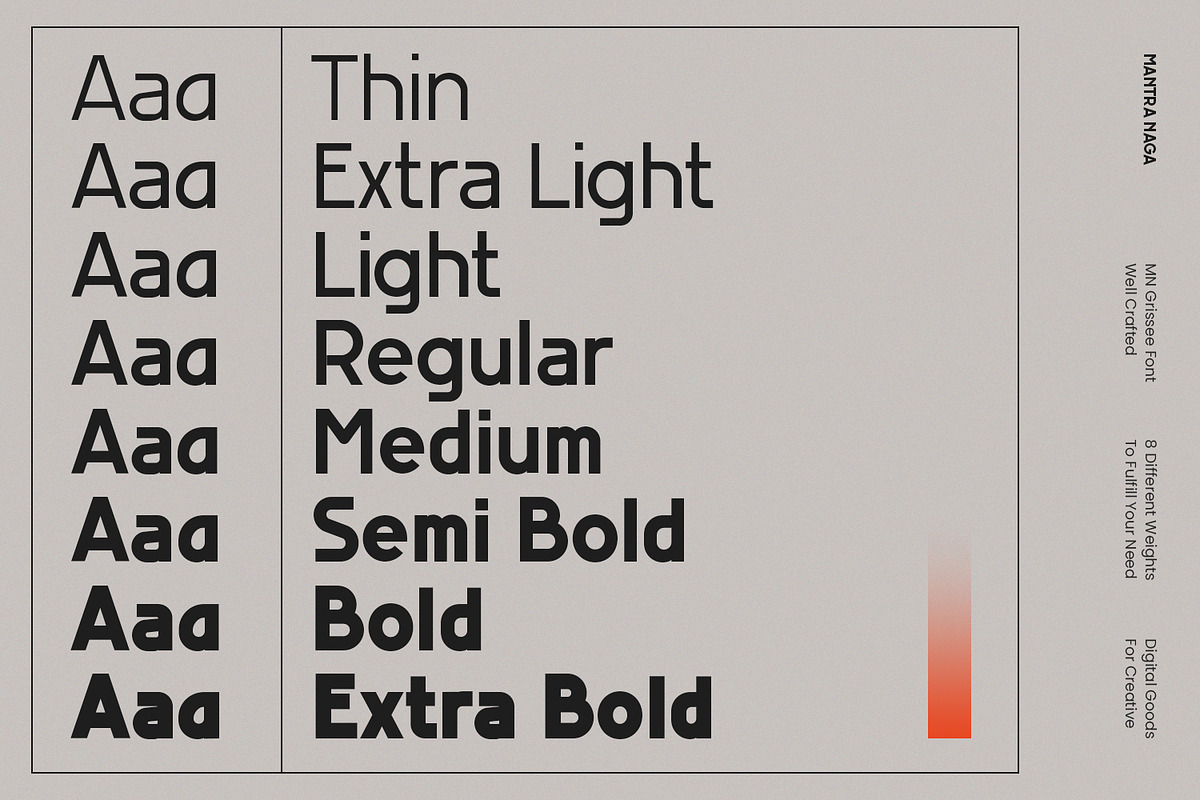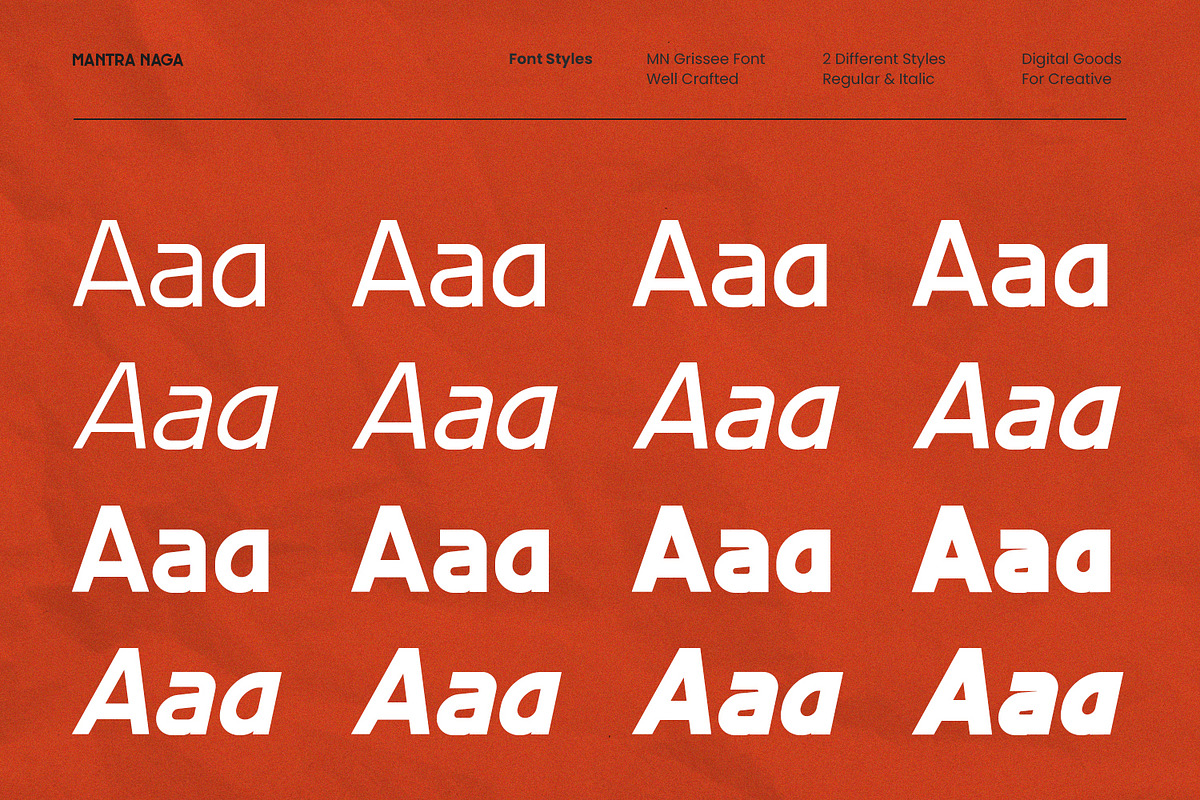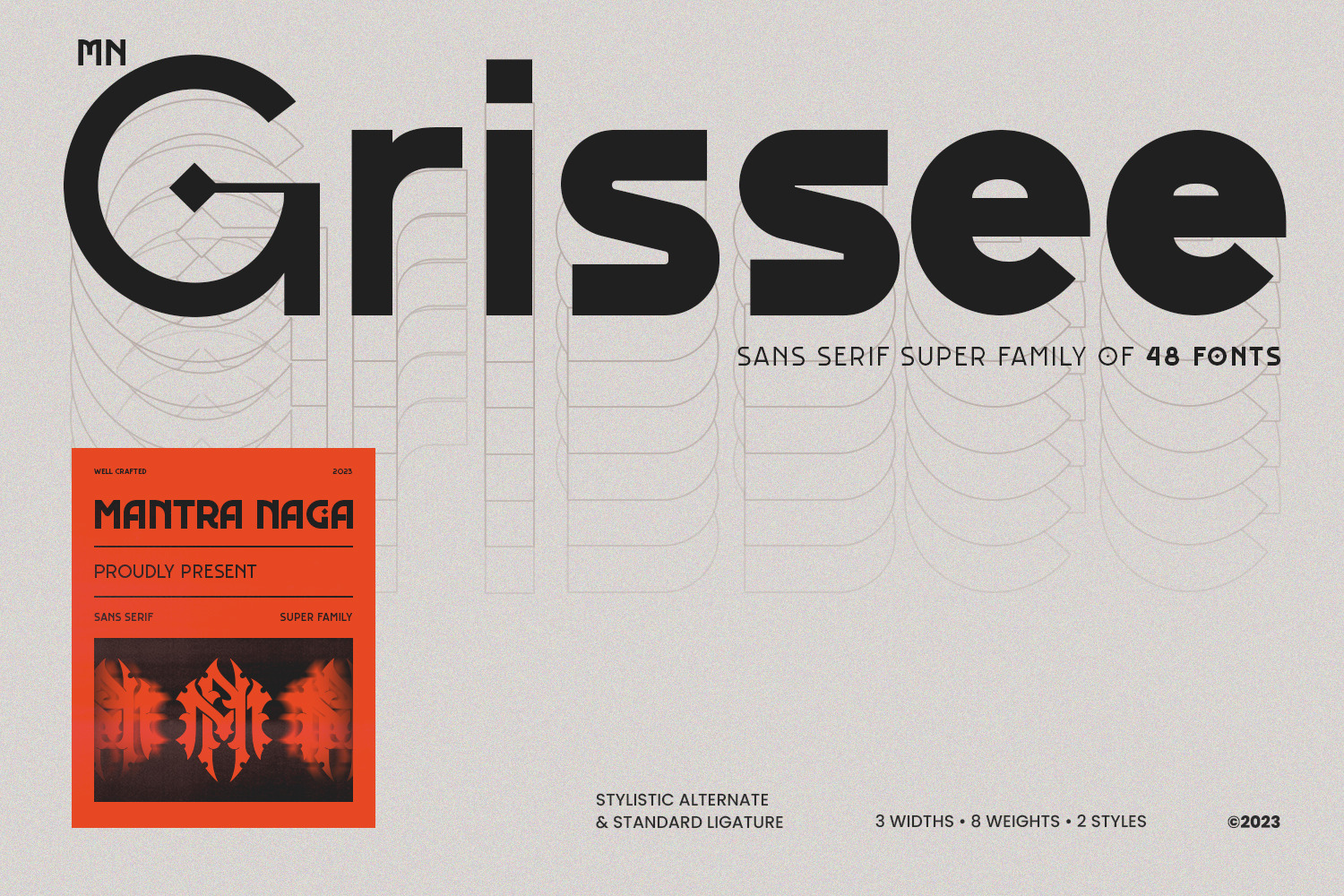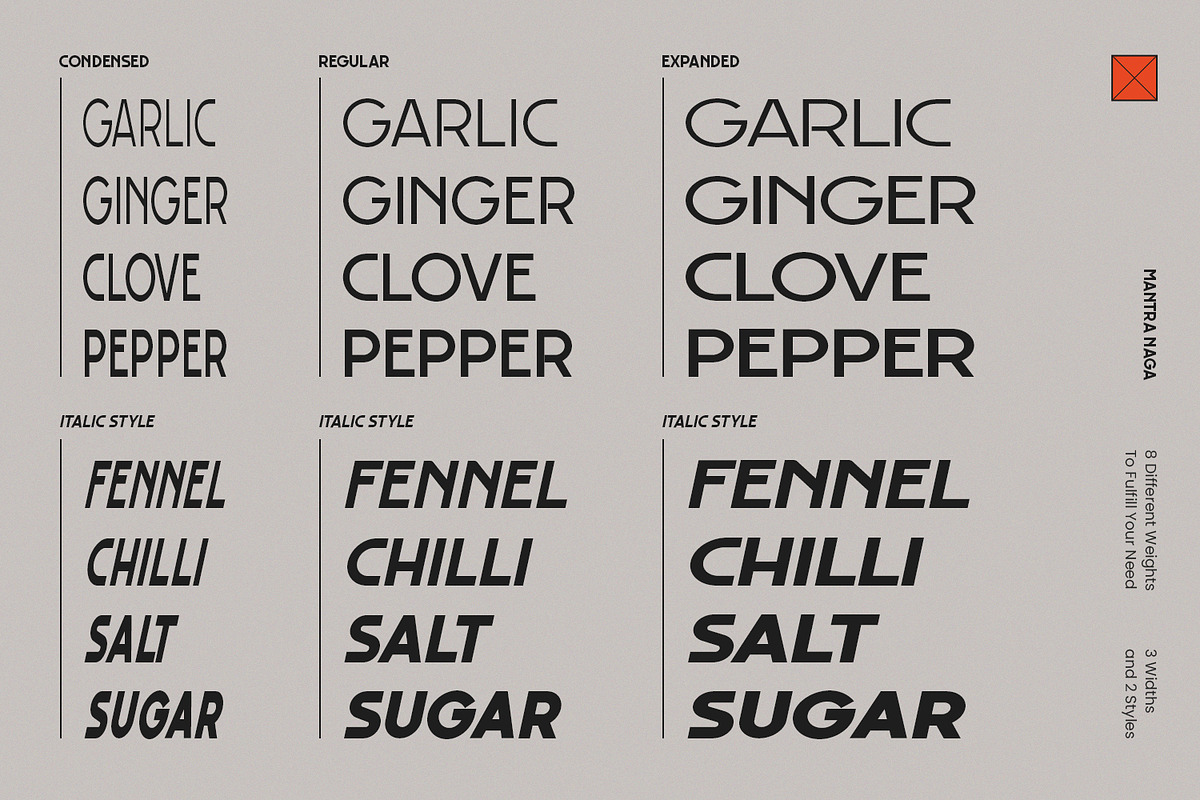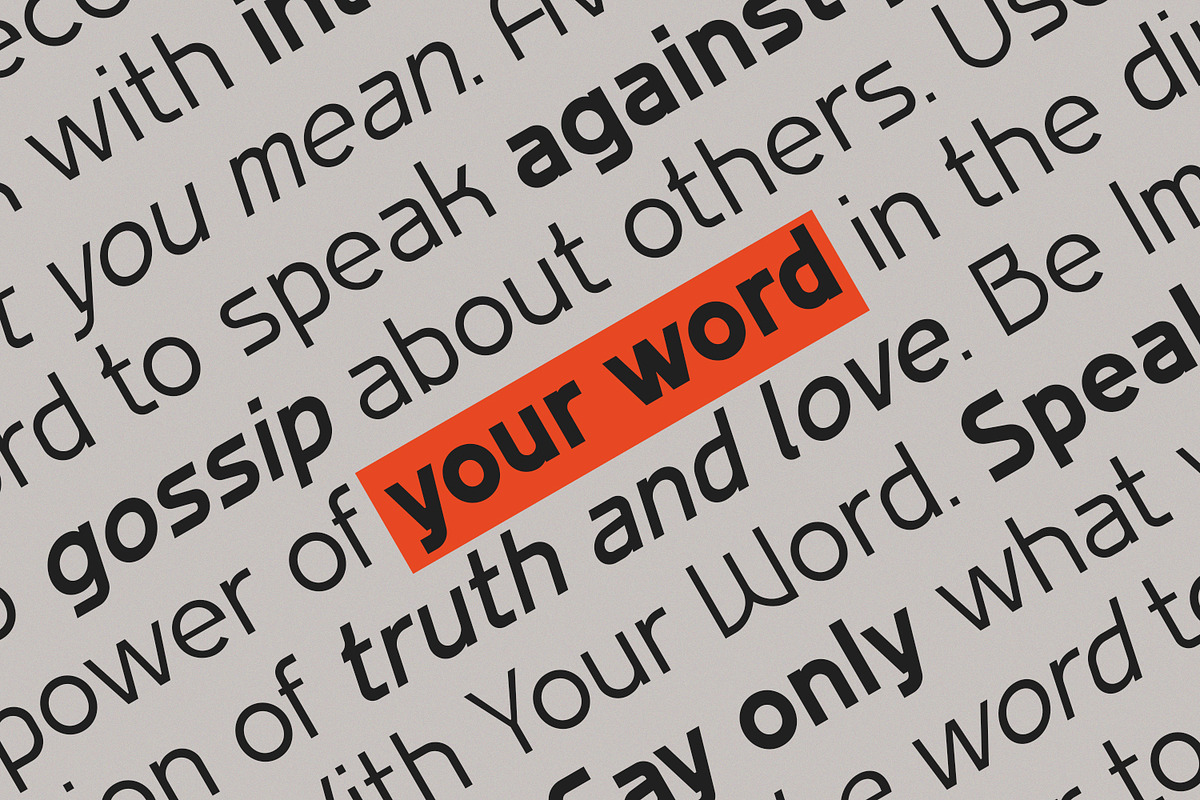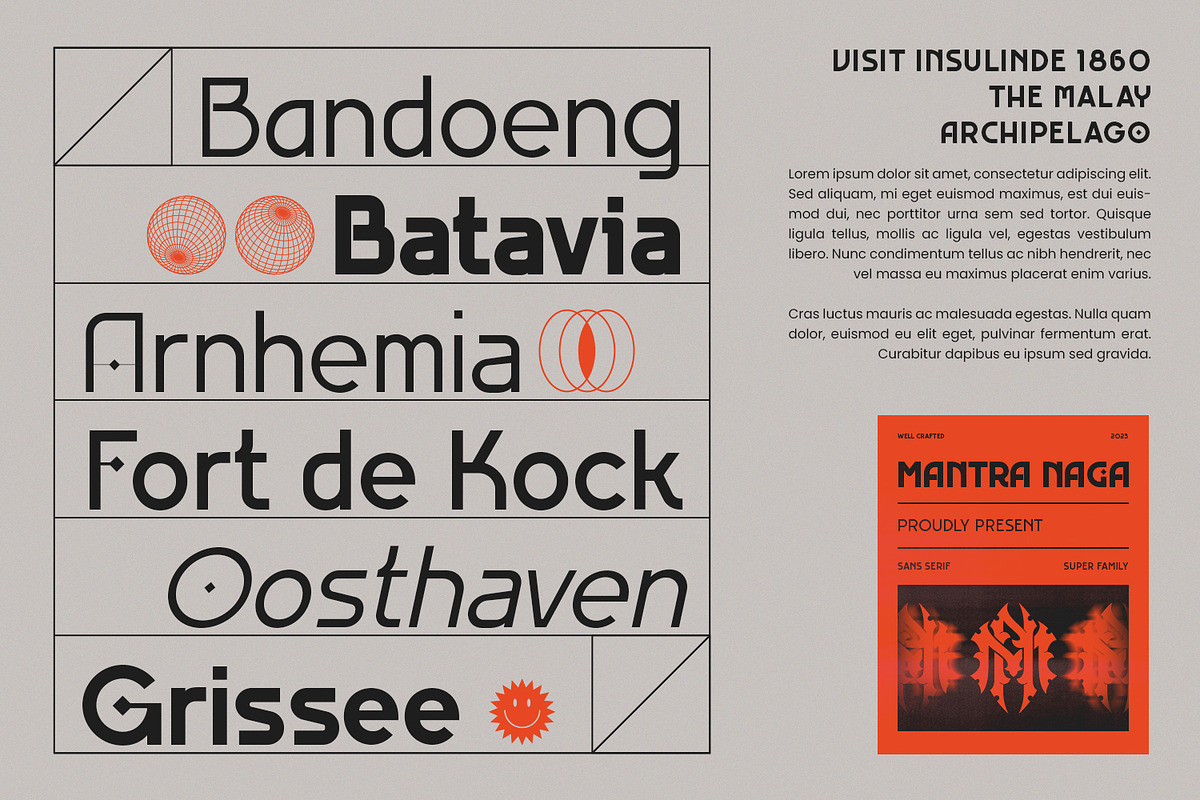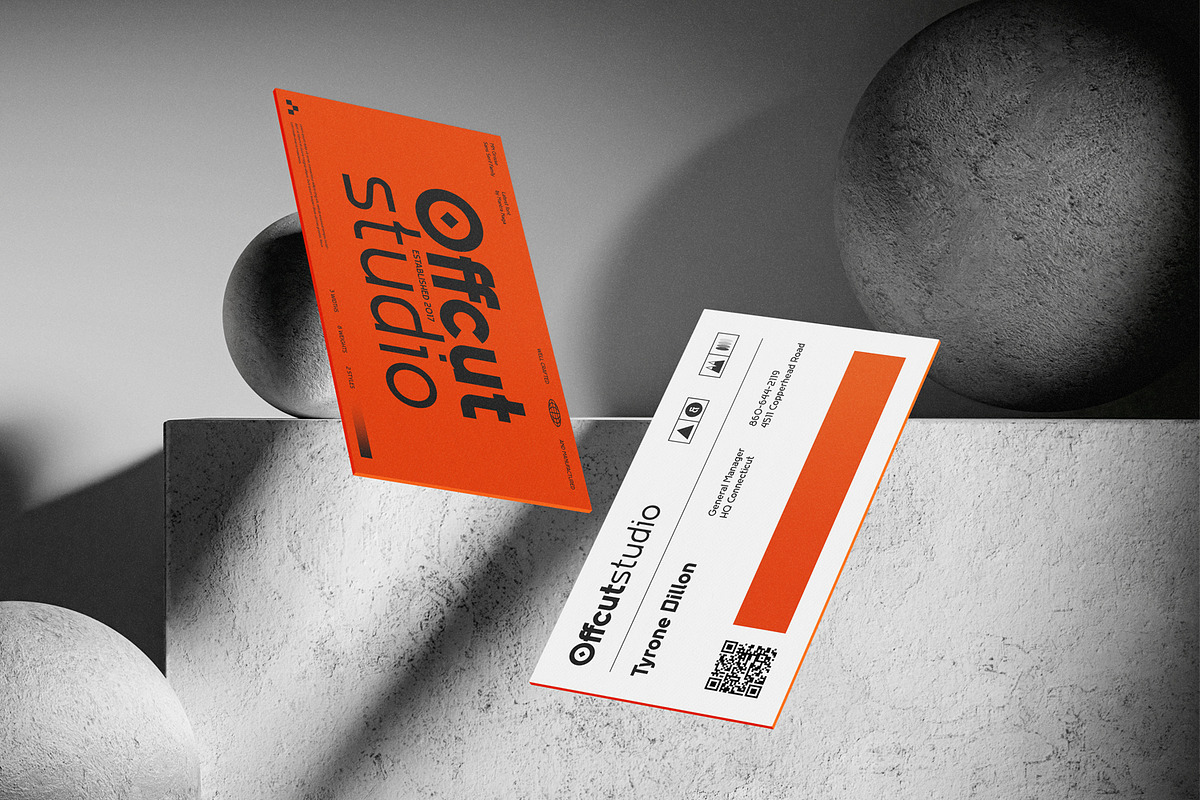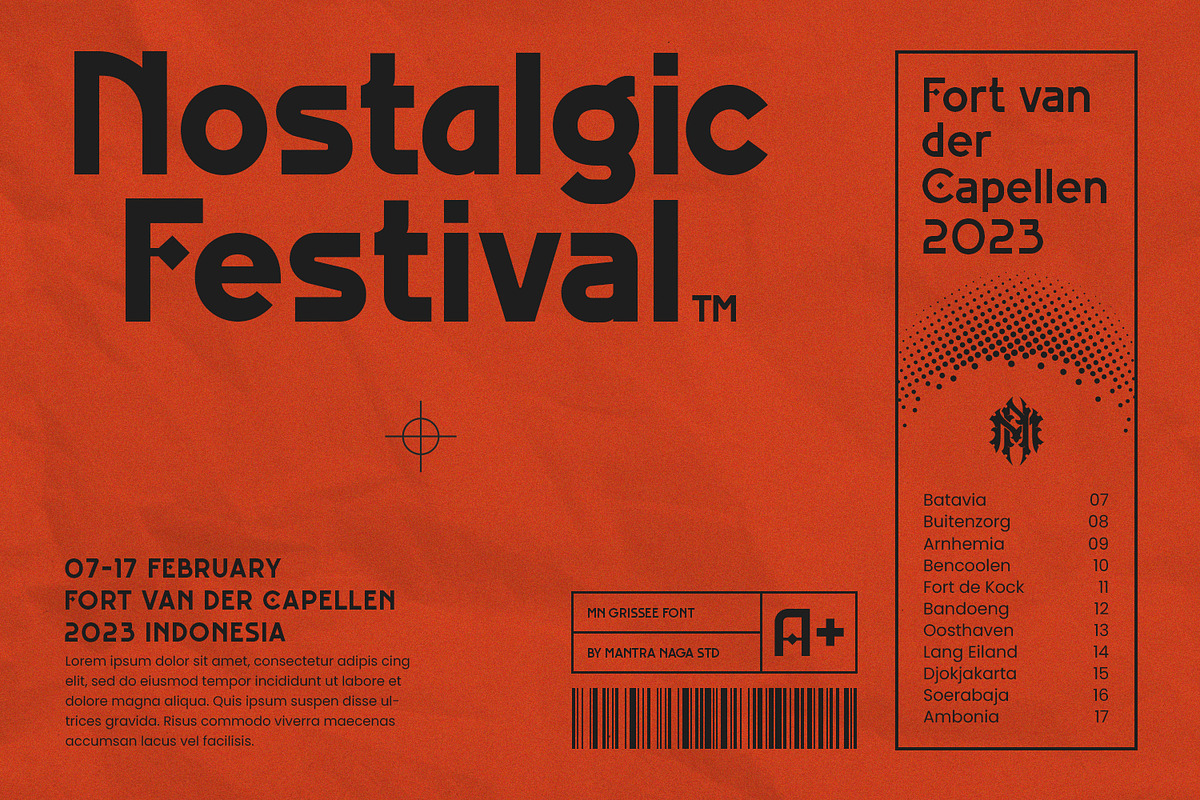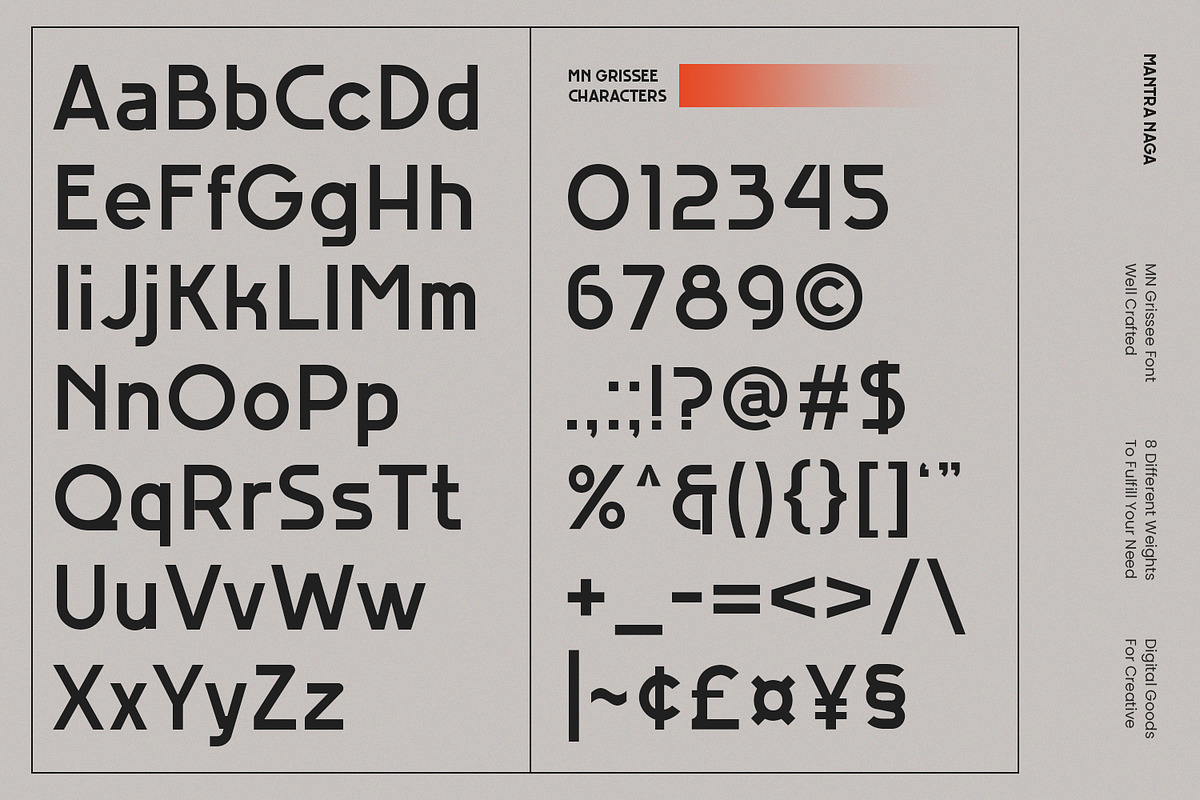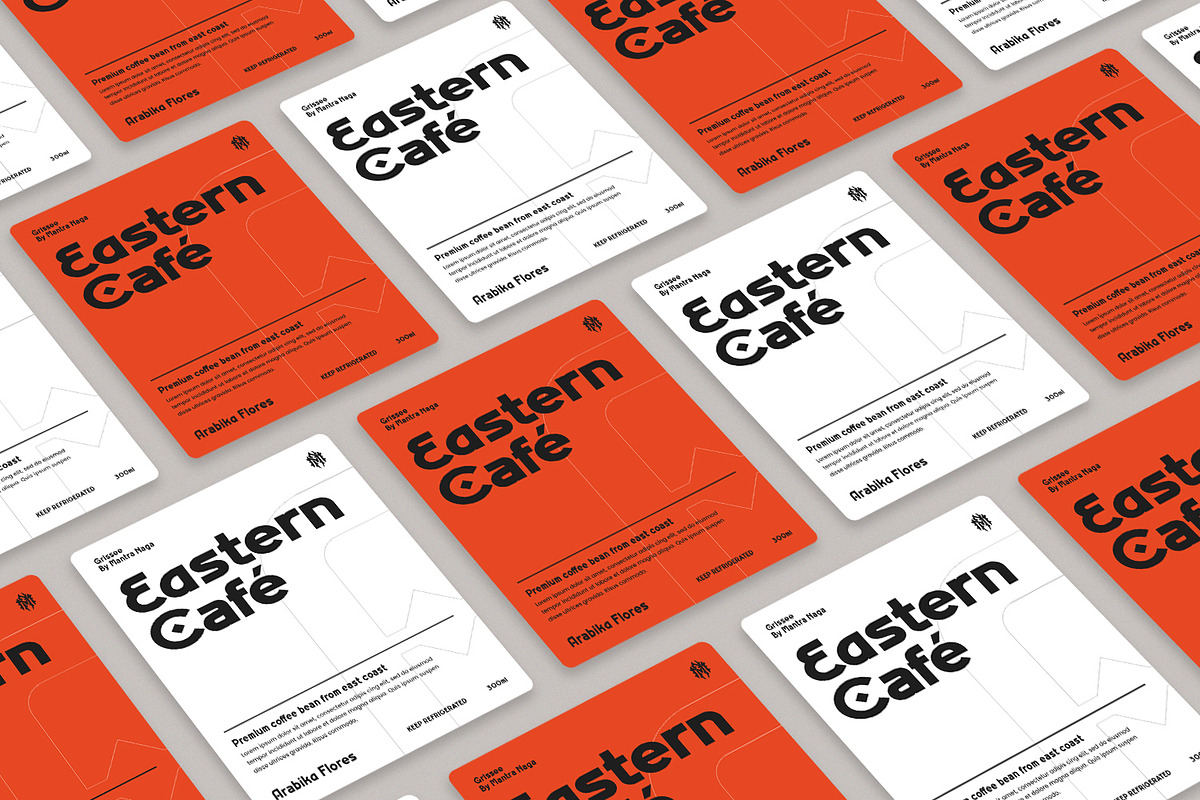
MN Grissee - Sans Serif Font Family
MN Grissee is a new sans serif font family with versatility in mind. With 436 glyphs and rounded facets, this typeface covers all types of web and graphic design projects. This font family contains 48 fonts divided into 3 widths, 8 weights, and 2 styles with a variety of professional Opentype functions such as pro kerning, stylistic alternates, swash, standard ligature, also multilingual support.
436 Glyphs
9 Opentype features
10 Ligatures, Stylistic Set and Swash
3 Widths (Condensed, Normal, Expanded)
8 Weights (Thin, Extra Light, Light, Regular, Medium, Semibold, Bold, Extrabold)
2 Styles (Regular & Italic)
Support Multilingual for 89 languages